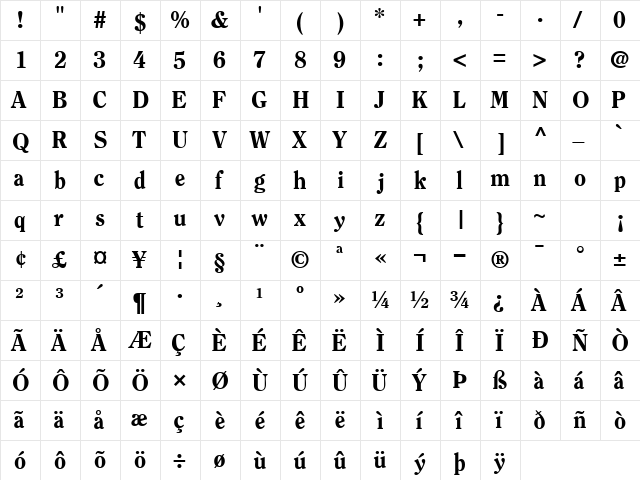
ClearfaceBlackSSK Bold
Design Context for ClearfaceBlackSSK Typeface
ClearfaceBlackSSK is a composed and adaptable typeface that performs quietly and consistently across a wide range of design contexts. The heavy weight commands attention and anchors typographic hierarchies.